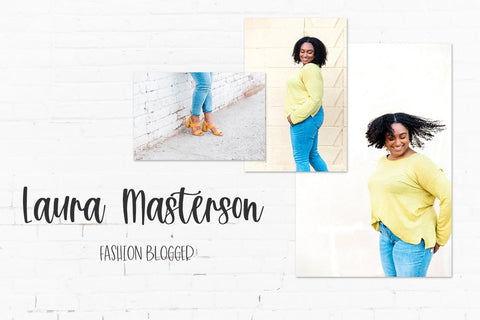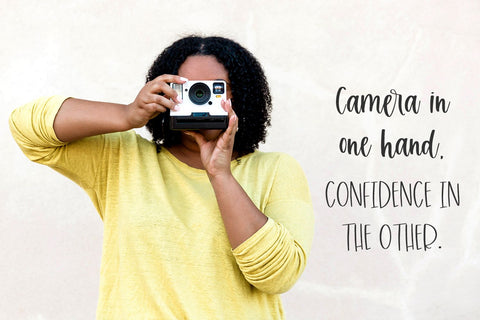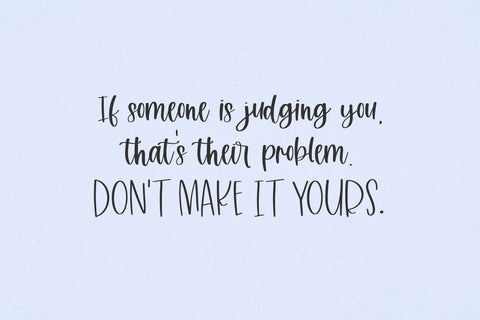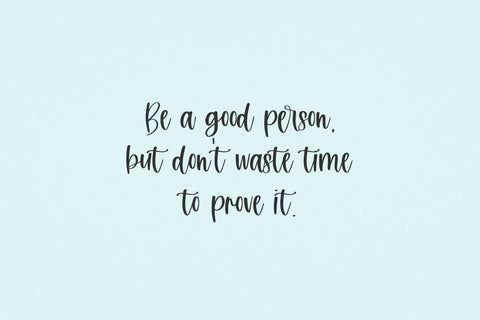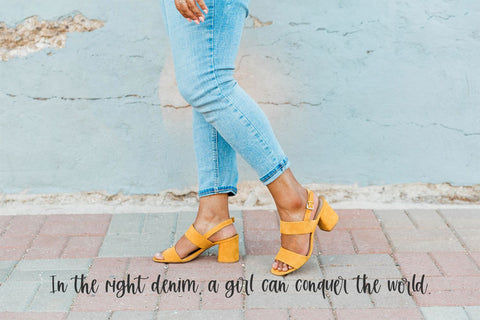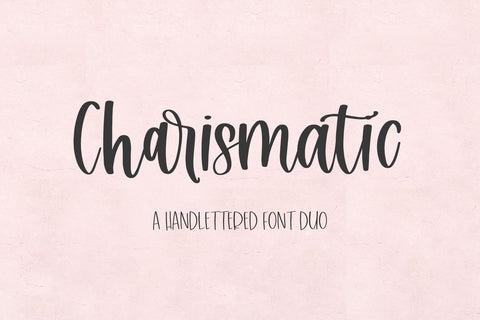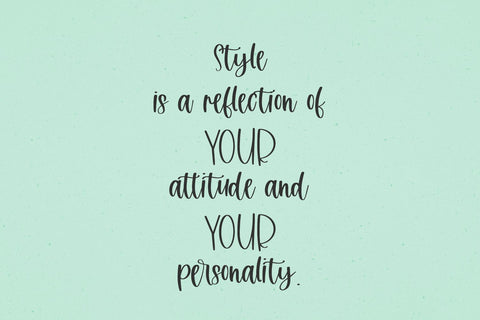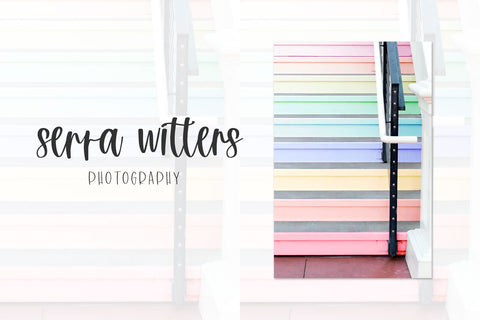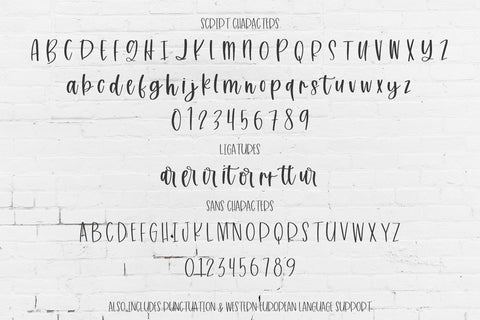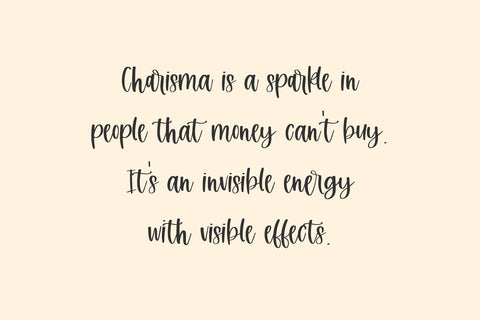
Charismatic Font Duo
Introducing Charismatic Script, a bouncy semi-cursive font with a few extra ligatures. Charismatic is a medium-thickness calligraphy style font with a super smooth edge, perfect for vinyl cutting or crafting. Charismatic is paired with a thin, all-caps sans font, ready to go for font pairing projects!
Charismatic is best for:
- logos + branding
- crafting projects on your Cricut or Silhouette machine - Charismatic features a smooth edge for cutting & is super legible
- header elements that need handwritten touch
- quote graphics for social media like Facebook or Instagram
Charismatic Script includes:
- full upper + lowercase characters
- numbers + punctuation
- Western European Language Support
- 8 ligatures - ar, er, ir, it, or, rr, tt, ur
- PUA-encoding
Charismatic Sans includes:
- all caps characters programmed into upper & lowercase spots
- Western European Language Support
- PUA-encoding